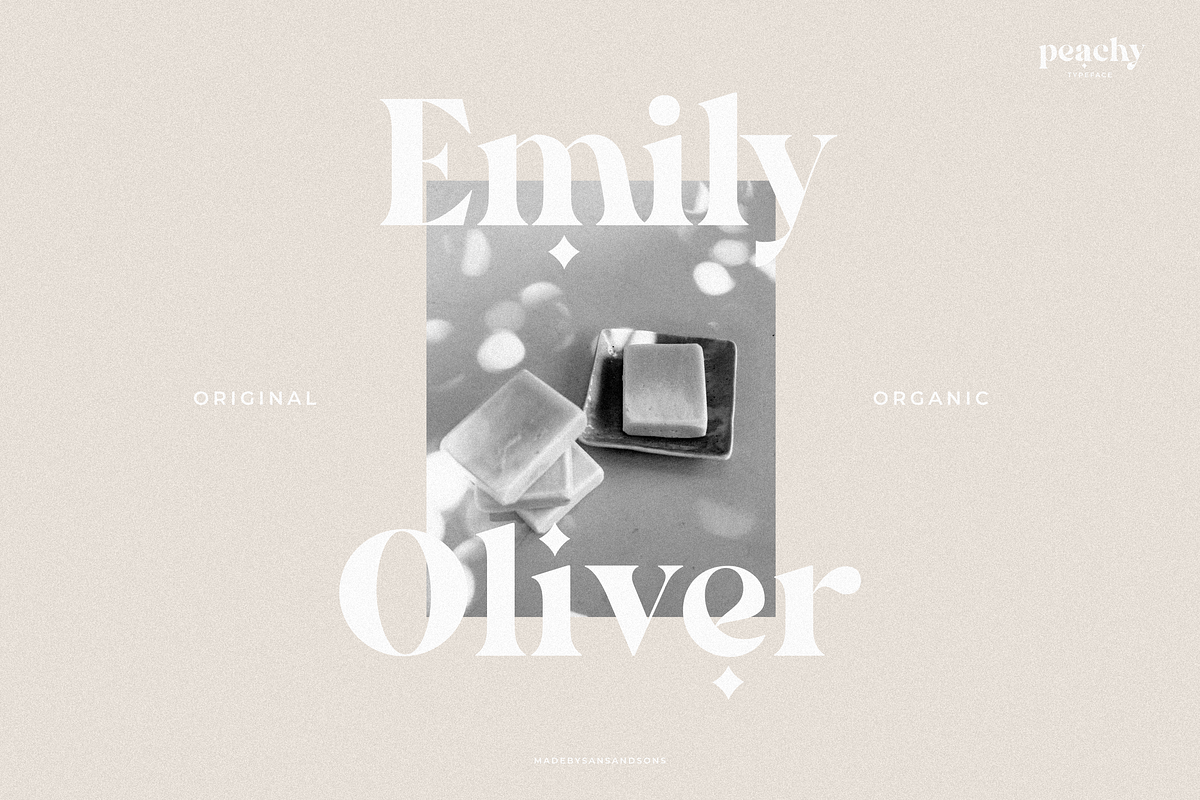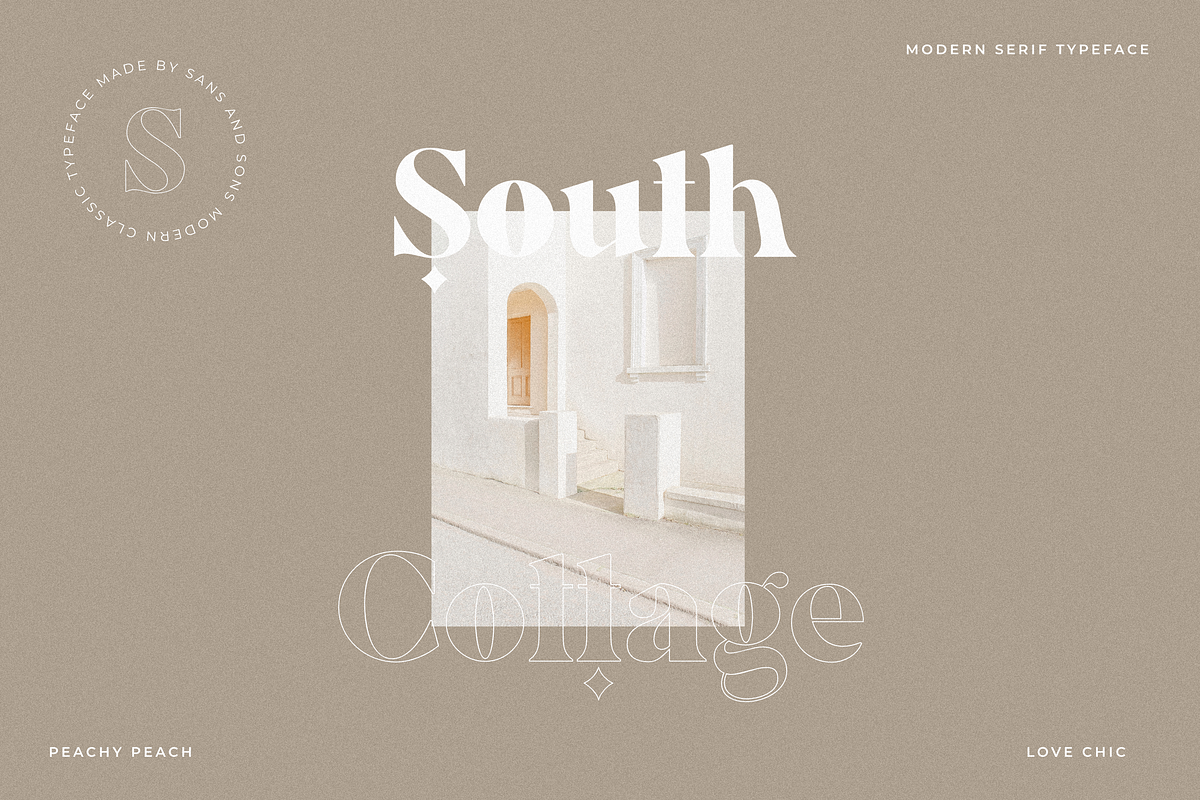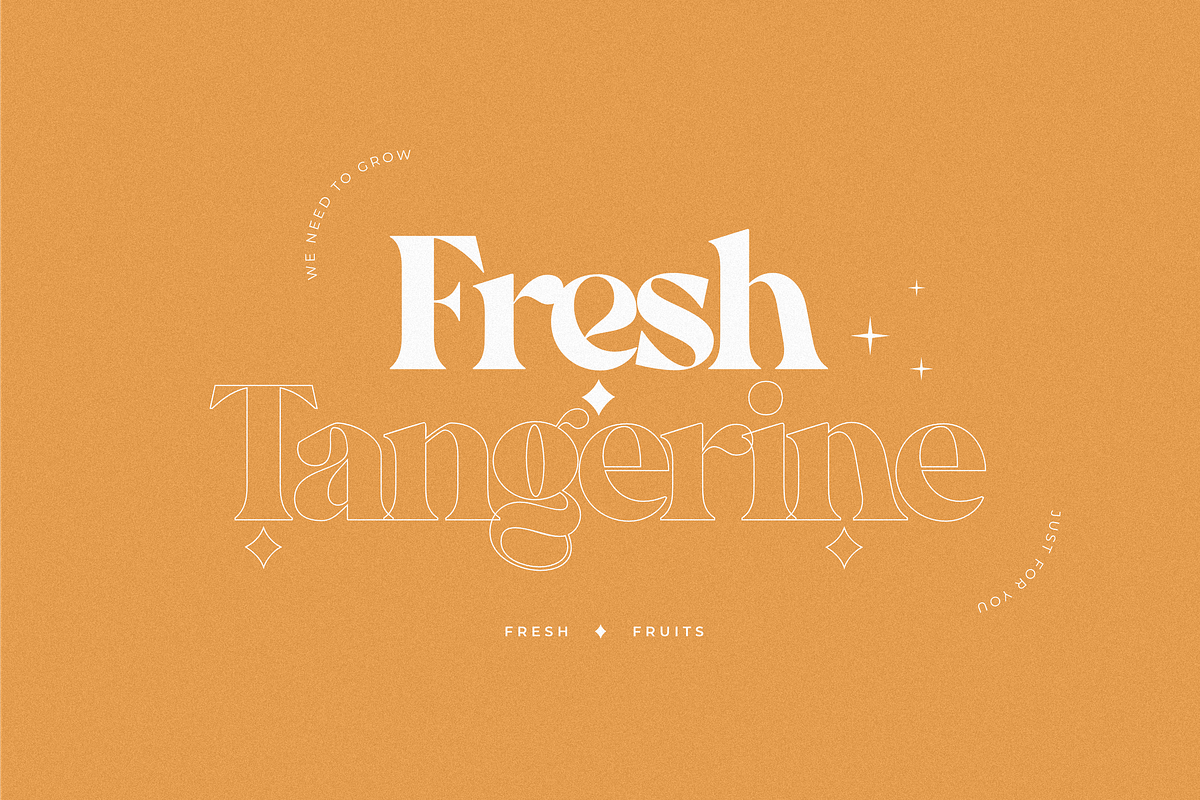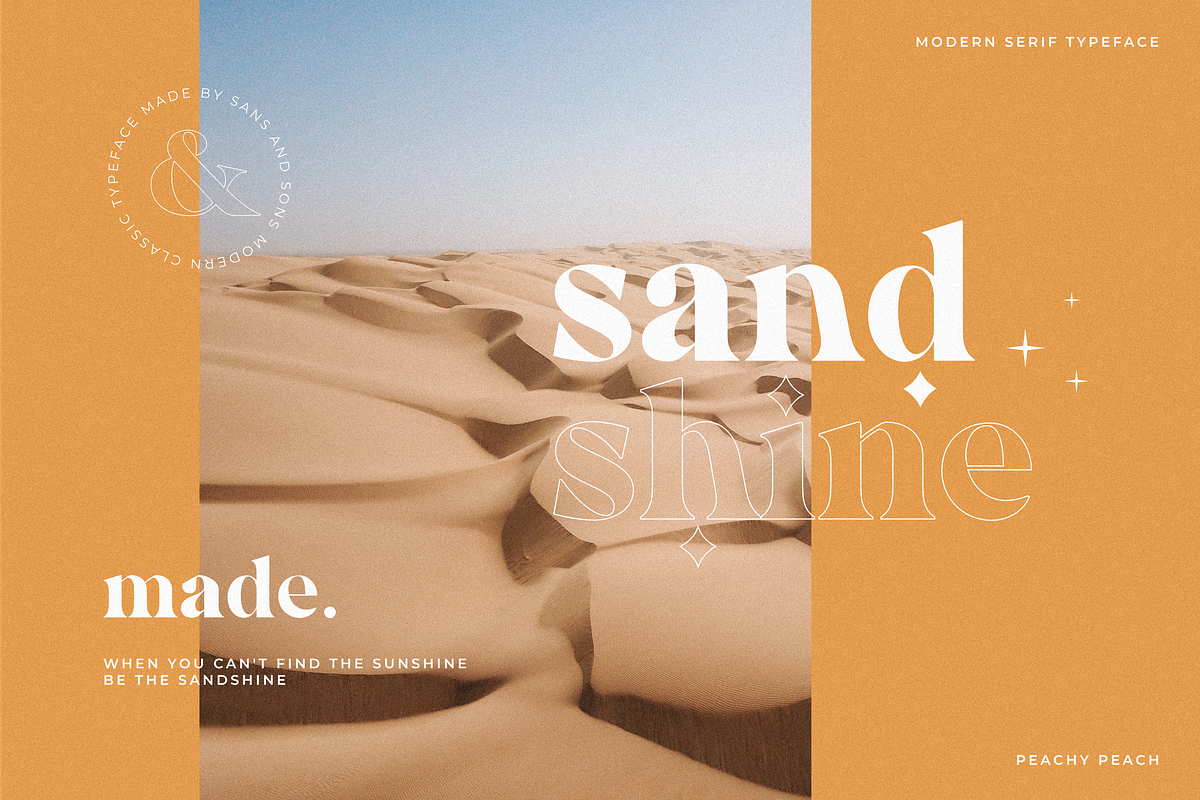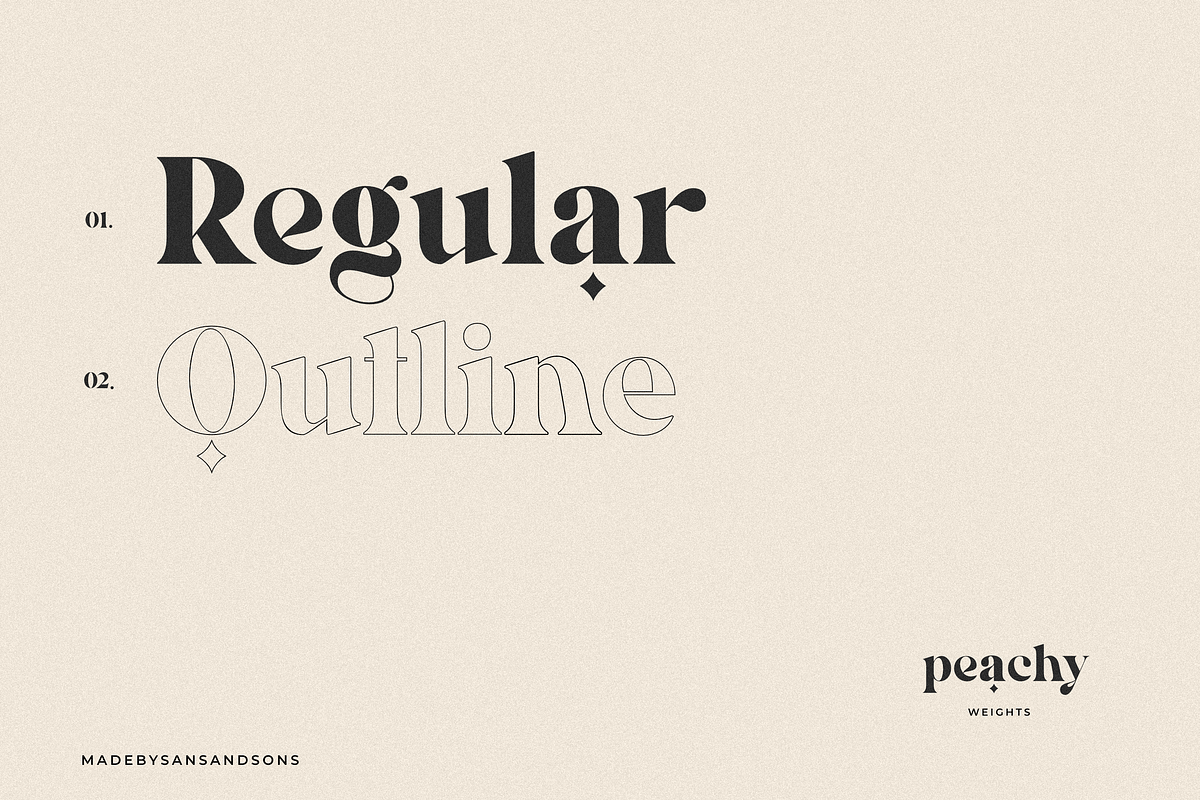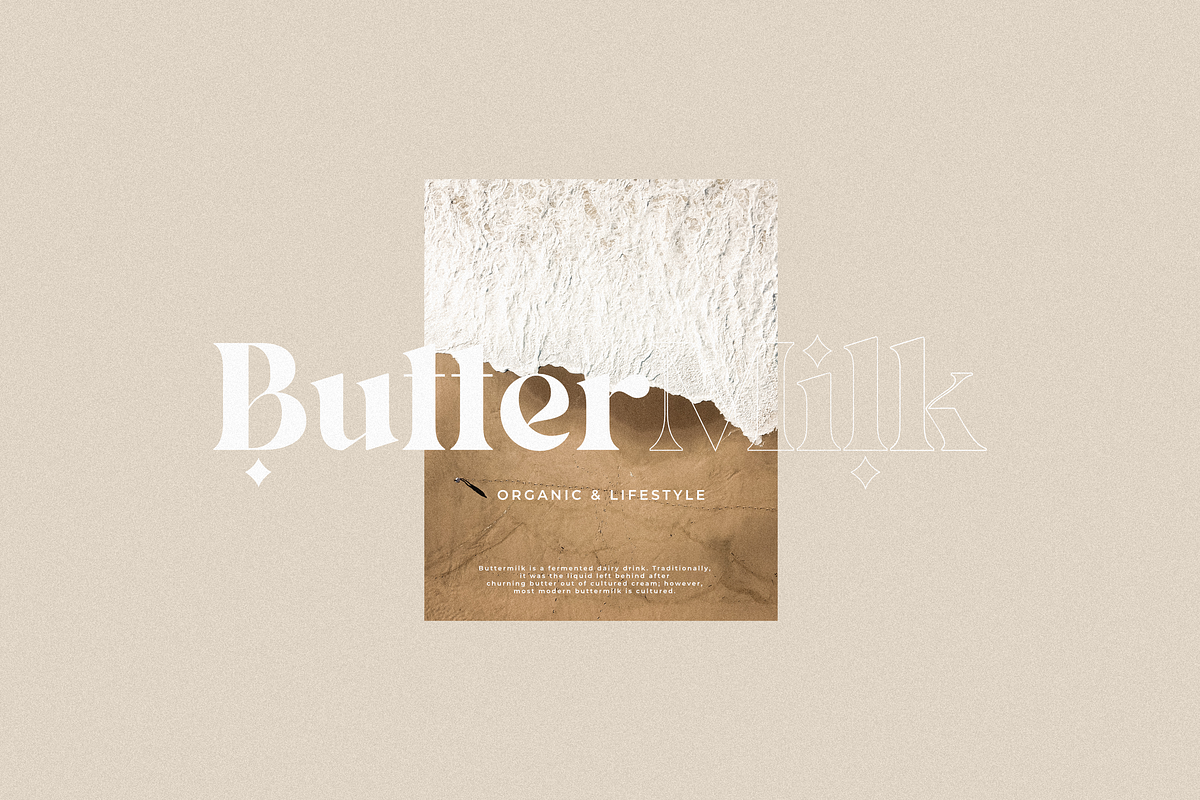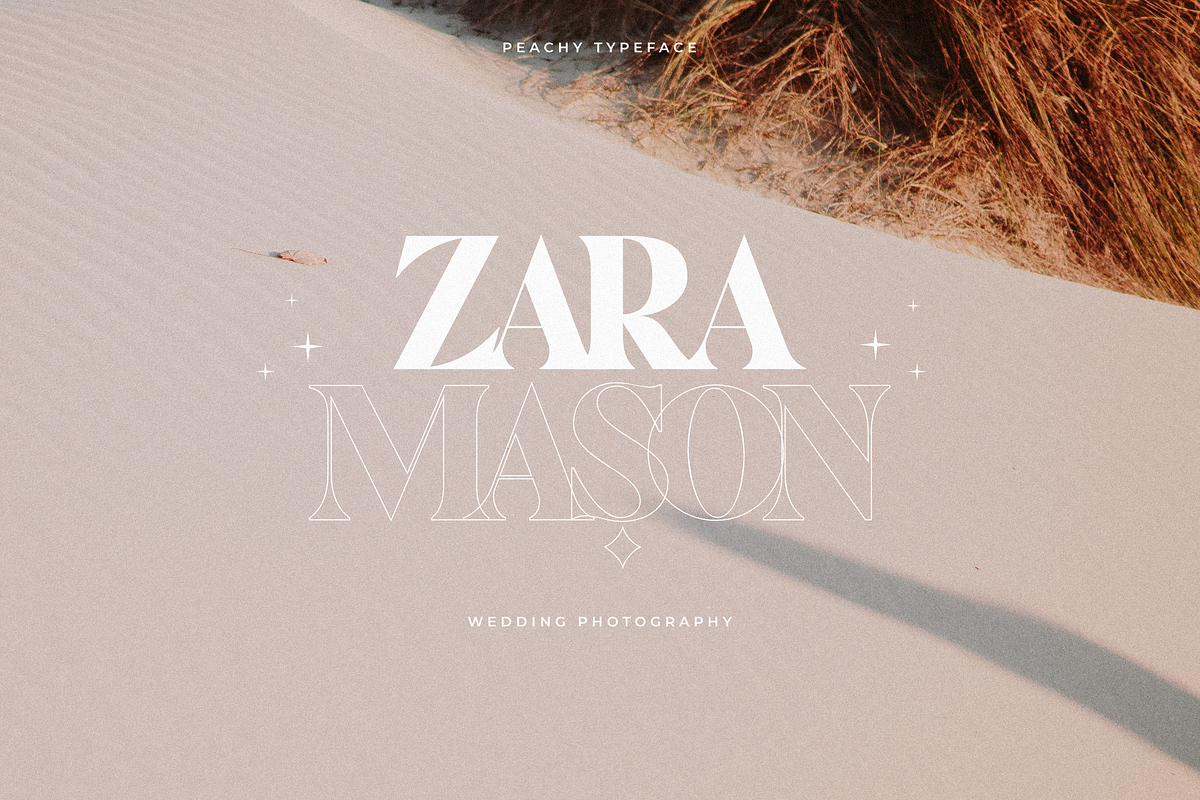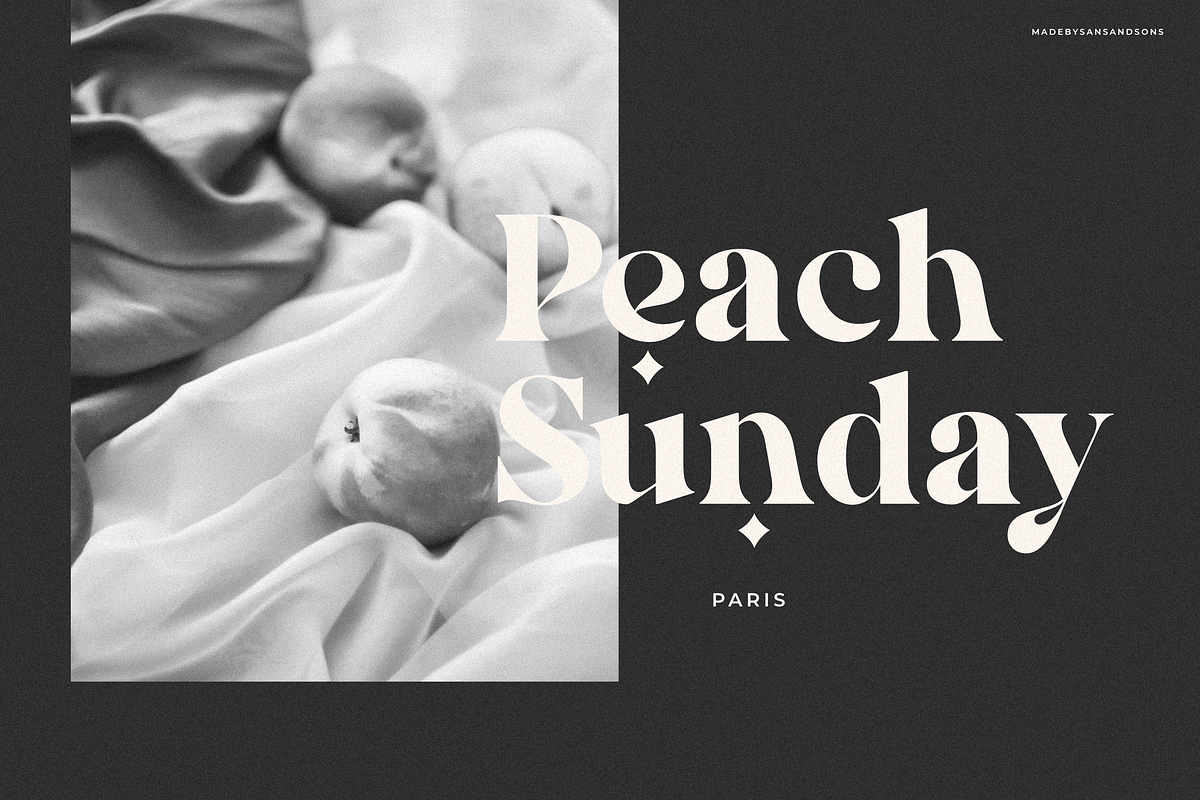
Peach - Modern Chic Serif
Peach - Modern Chic Font by Sans and Sons
introducing our new "Peach" Modern Chic with Elegant Style is perfect for branding, logos, invitation, master heads, and more.